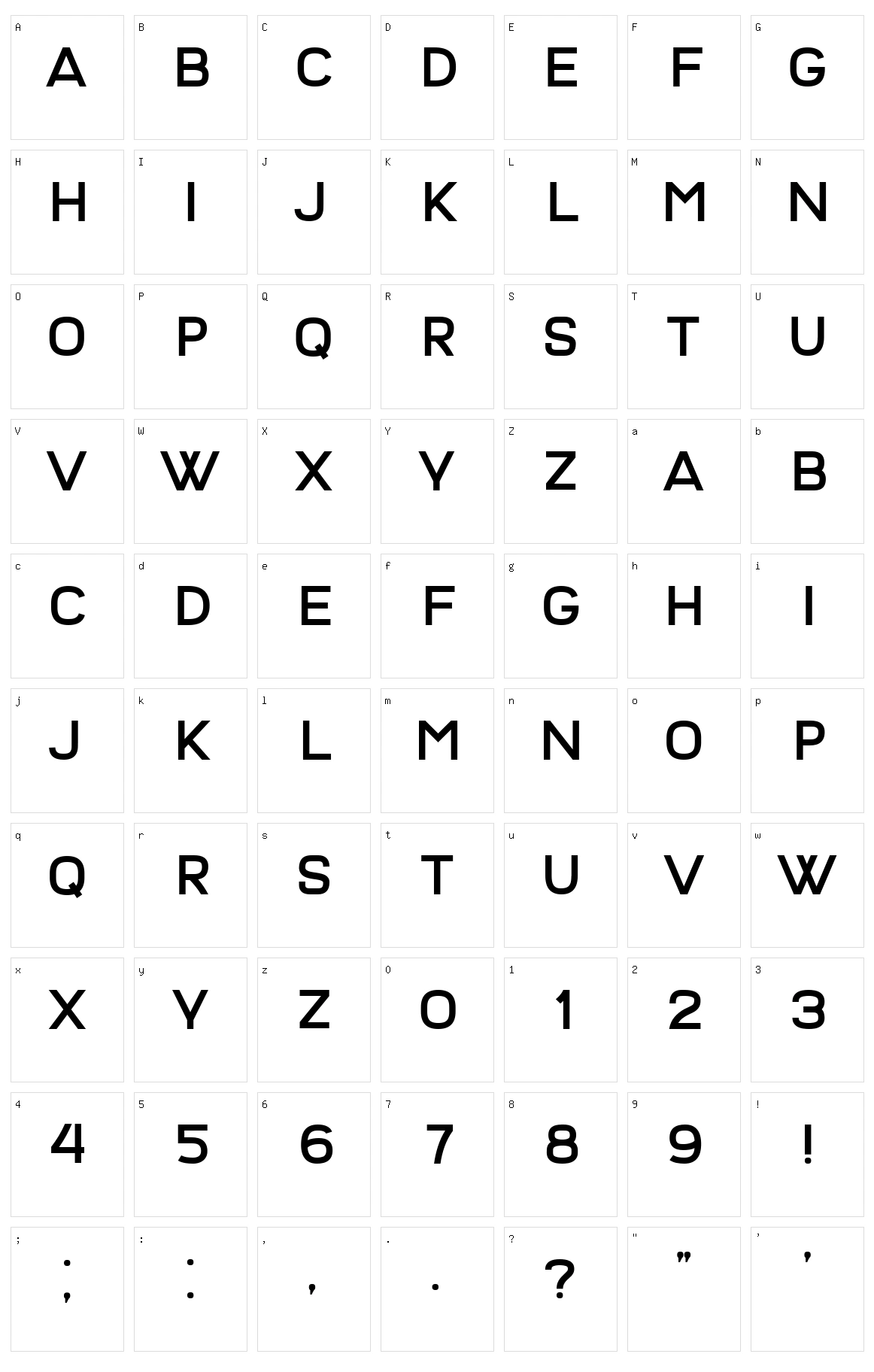
The free font Nutty Buddy is carefully designed by Vladimir Nikolic, showcasing a thoughtful balance of creativity and usability and falls under the Sans serif font style. When you download the ZIP file, it contains only 15.04 KB of font files, making it lightweight and quick to download. Please review the license details below to understand permitted usage and distribution rights. If license information is not available, we recommend using this font for personal projects only or contacting the author directly for commercial usage permissions.